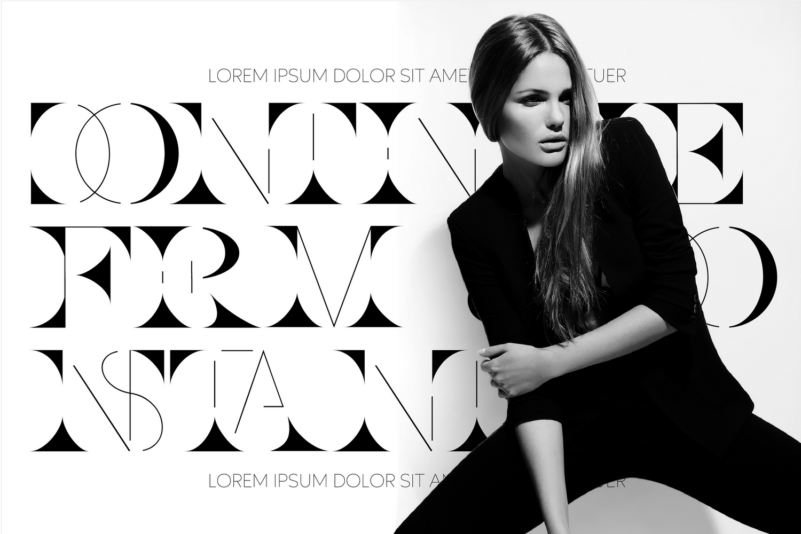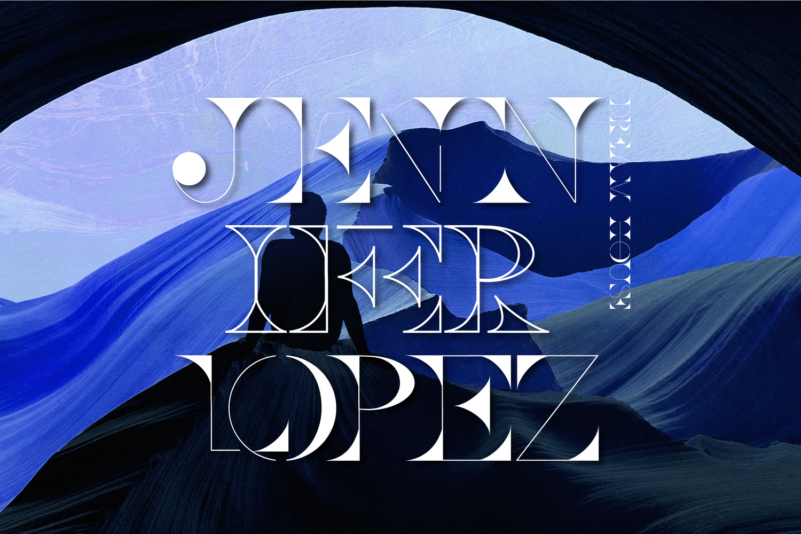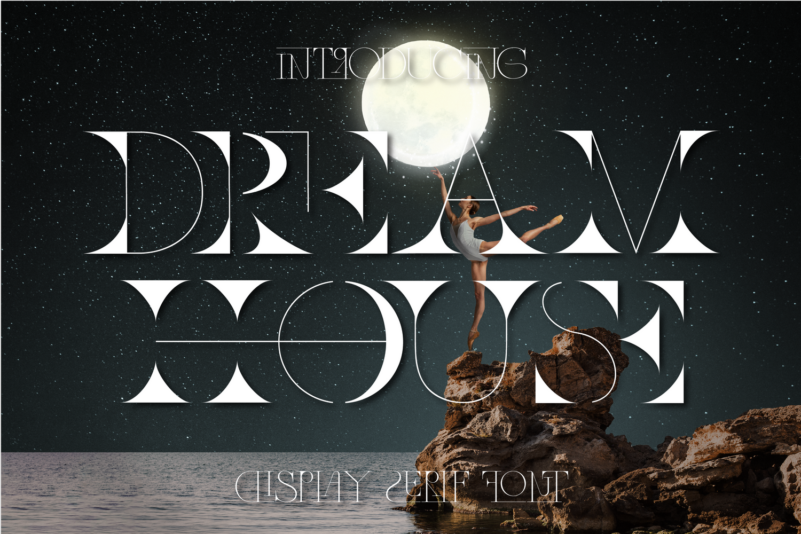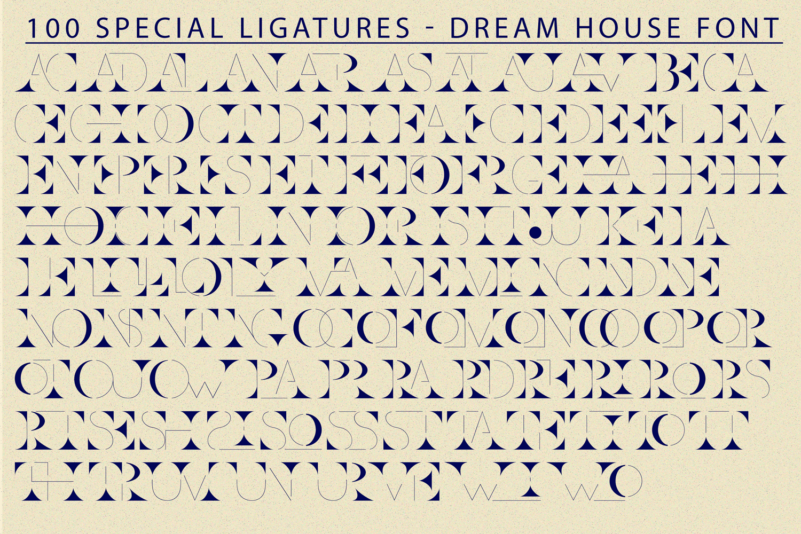
Dream House Font
Dream House Font is a fancy modern serif font. It’s characterized by extreme contrast between thin and thick lines .This font is both modern and nostalgic and works great for logos, magazine, social media. Already matched up and ready to be used together for your next design! This font is very suitable for various kinds of projects such as, brands, magazines, logos and more. There are alternative style and ligature features that make the typeface look more unique.
Dream House was built with OpenType features and includes 100 ligatures, alternate, numbers, punctuation, and it also supports other languages.